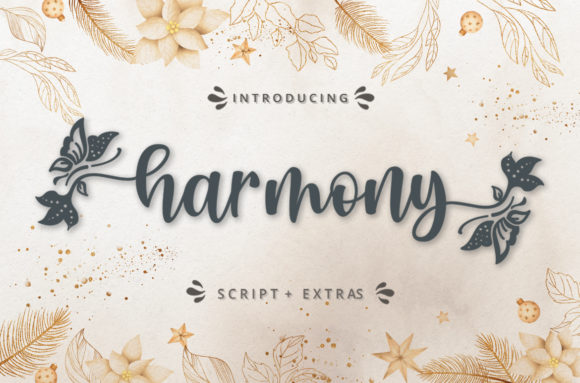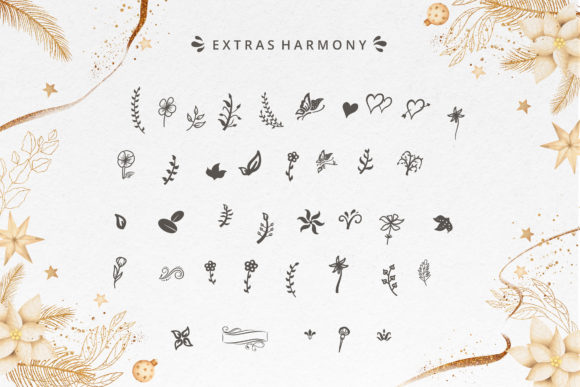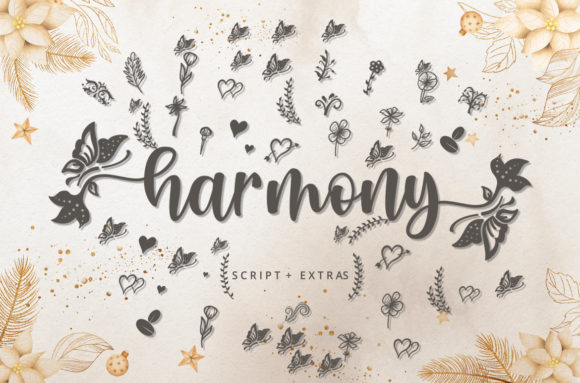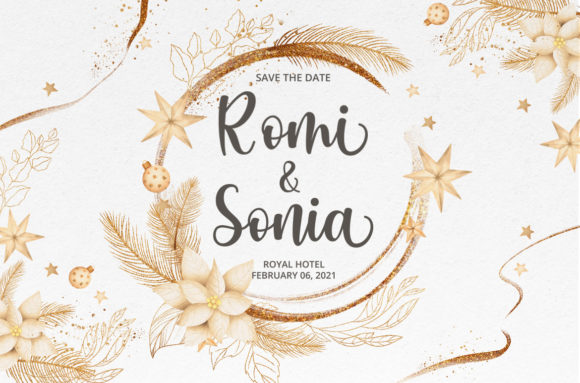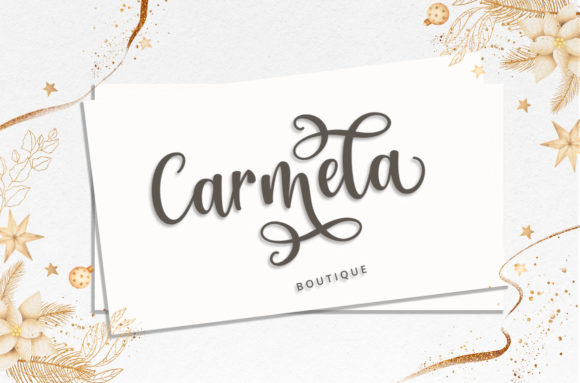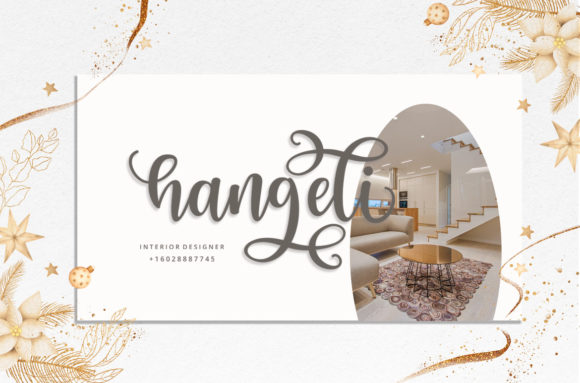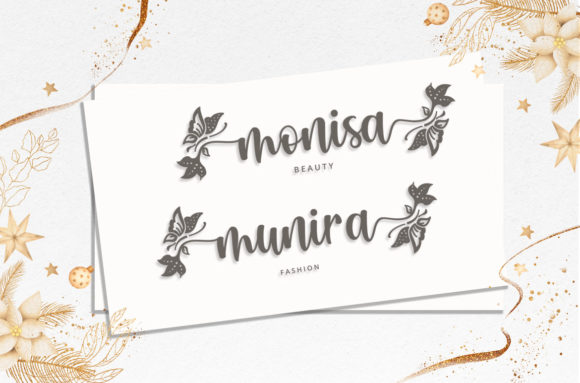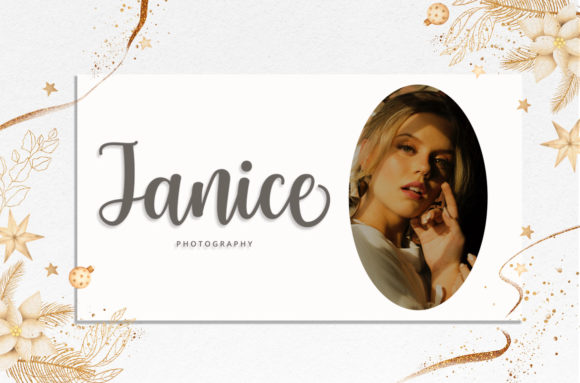
Harmony Font
About Harmony Font
Harmony is a chic, highly detailed and eternal handwritten font. It is the ideal choice for creating eye catching logos, branding and quotes. Each letter has a neat and lovely touch, which will make your design come alive!